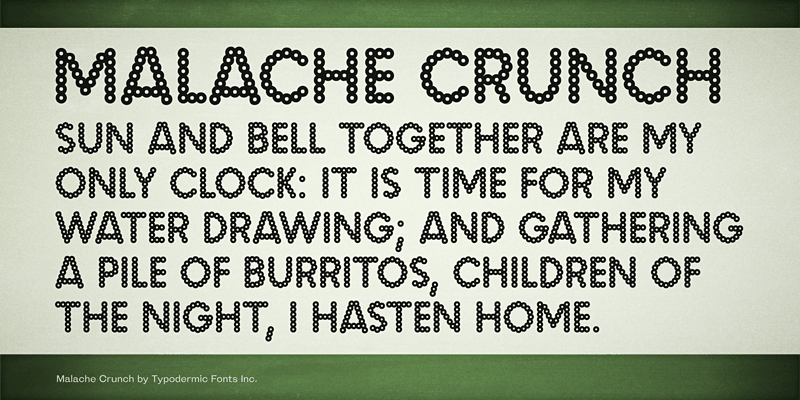
Malache Crunch is a pierced display headliner made from connected rings. This font includes a license that allows free commercial use: sometimes referred to as a desktop license. This allows you to install the font on a computer and use it to create posters, web graphics, game graphics, t-shirts, videos, signs, logos and more. Read the license agreement for details. If you'd like to embed this font in an app, ebook, on the web or anything that's not covered by the desktop license agreement, visit the link below. You'll find distributors who offer different types of licenses or you can contact me for help. http://typodermicfonts.com/malache-crunch/ |